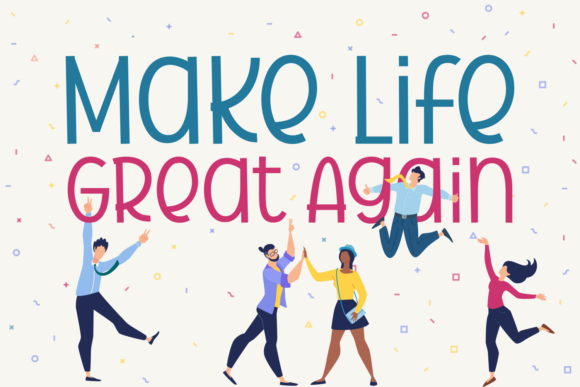
Journey into the world of the "Make Life Great Again" display font, where creativity knows no bounds. Unleash your artistic flair and transform your visions into reality with this remarkable font, crafted by the renowned Jasm (7NTypes).
Immerse yourself in a font that exudes simplicity and effortless charm. Make Life Great Again's neatly lettered design brings a touch of elegance to your designs, seamlessly blending into any project. It's the perfect companion for those seeking a font that speaks volumes without overpowering the essence of their work.
With Make Life Great Again, you're not just downloading a font - you're embarking on a creative expedition. Let your imagination run wild as you explore the endless possibilities this font unlocks. Whether you're designing invitations, posters, logos, or social media graphics, Make Life Great Again empowers you to make a lasting impression.
Its versatility extends far beyond the boundaries of personal projects. This font flourishes in the realm of Cricut crafting, where precision and creativity intertwine. Elevate your Cricut creations to new heights, transforming ordinary materials into masterpieces that captivate and inspire.
Make Life Great Again is a font that ignites your creativity and sets your ideas ablaze. It's more than just a design tool - it's a gateway to a world where your imagination reigns supreme. Embrace the power of simplicity and let Make Life Great Again be your creative ally, transforming your artistic dreams into tangible realities.
Discover the magic of Make Life Great Again today and embark on a creative journey that will redefine your artistic boundaries. Let your designs shine, let your ideas flourish, and let Make Life Great Again be the catalyst for your creative revolution.